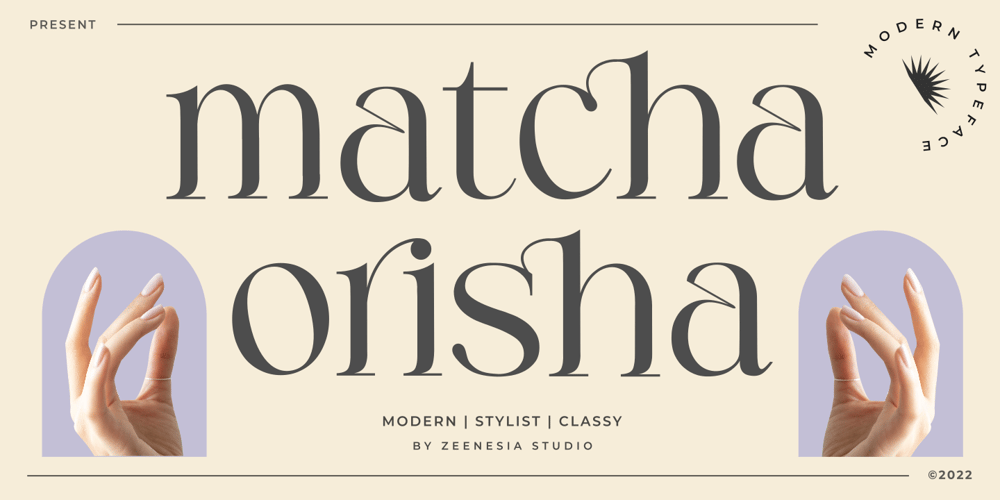
Matcha Orisha Font Family was designed by Doni Purwoko and published by Zeenesia Studio. Matcha Orisha contains 1 styles and family package options. Matcha Orisha is a beautiful and feminine serif font created by a romantic and lovely look. Matcha Latte was built with openType features, stylistic Alternate and Ligature makes your project will be awesome!! Perfect for Branding identity, editorial projects, Logo design, web font, clothing branding, product packaging, magazine headers, or simply as a stylish text overlay to any background image.